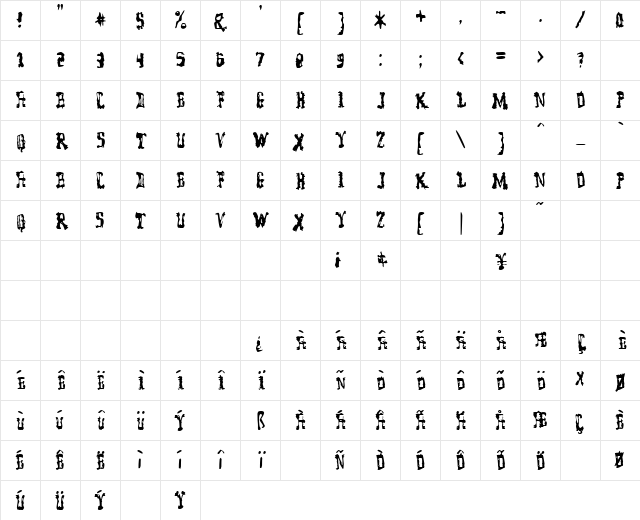
Model Worker Normal
Design Context for Model Worker
Model Worker is a composed and adaptable typeface that performs quietly and consistently across a wide range of design contexts.